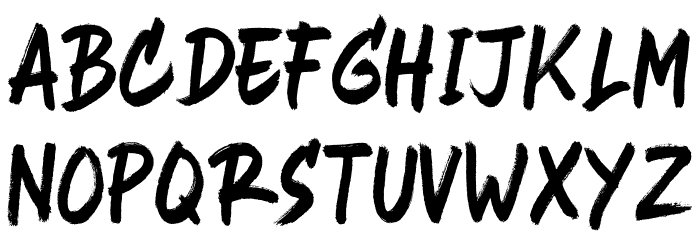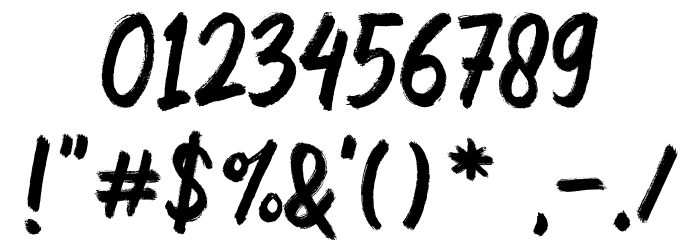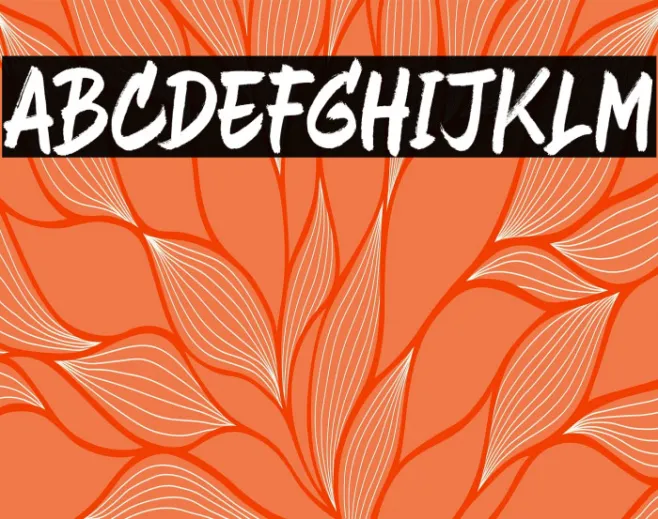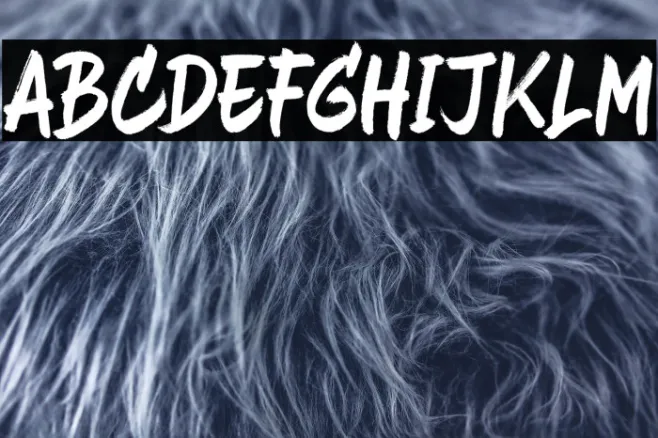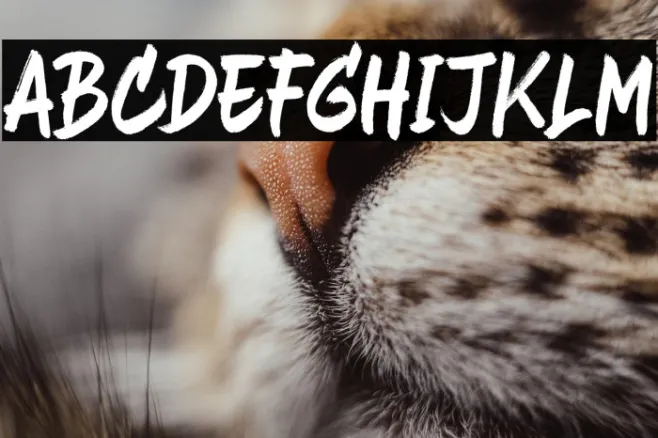
Heavy Black Font
This font exudes a bold and dynamic presence with its heavy brush strokes and energetic style. The characters are crafted with a sense of movement and flair, making each letter appear as if it has been painted with a thick brush. The uppercase and lowercase letters maintain a consistent weight, providing a cohesive look across the alphabet. Numbers and special characters follow the same bold aesthetic, ensuring uniformity. The font's design suggests a sense of urgency and expressiveness, ideal for making a strong visual impact.
A bold, brush-style font with dynamic and expressive strokes.
- Font: Heavy Black
- Proposed Projects: Ideal for posters, branding, headlines, and any project requiring a strong, artistic touch.